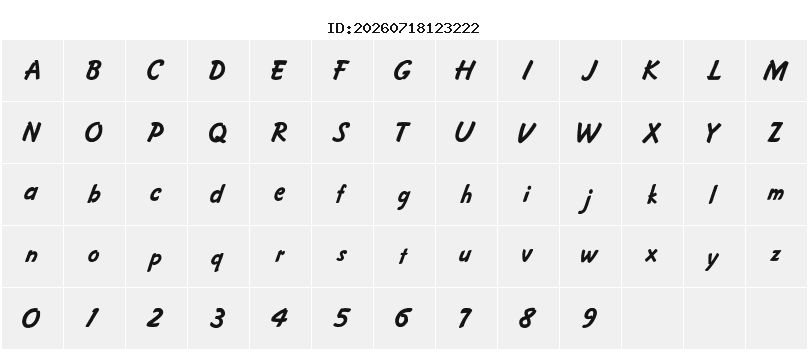
• Font Name: Cartoon-Normal
• Full Font Name: Cartoon-Normal
• PostScript Name: Cartoon-Normal
About Cartoon-Normal.ttf
Cartoon-Normal.ttf is a modern, elegant sans-serif font designed for ultimate readability and visual harmony. Perfect for branding, headlines, web design, and print materials.